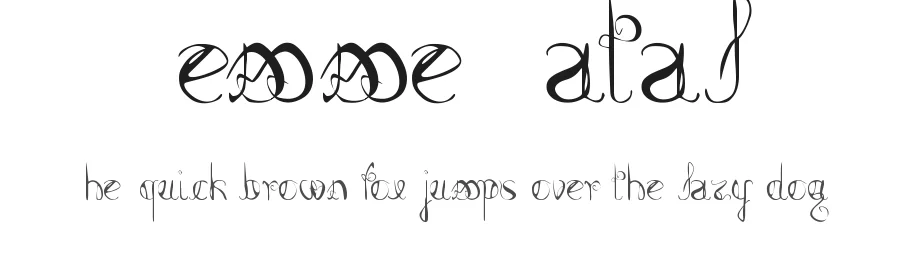
About Juicy Boxes Font
| Designer | Xerographer Fonts Max Infeld |
Juicy Boxes Font is a decorative font that shines as a display or heading face. Pair it with a clean sans-serif or serif font for body text β the contrast creates a clear hierarchy while the two styles stay balanced and easy to read.
Juicy Boxes Font